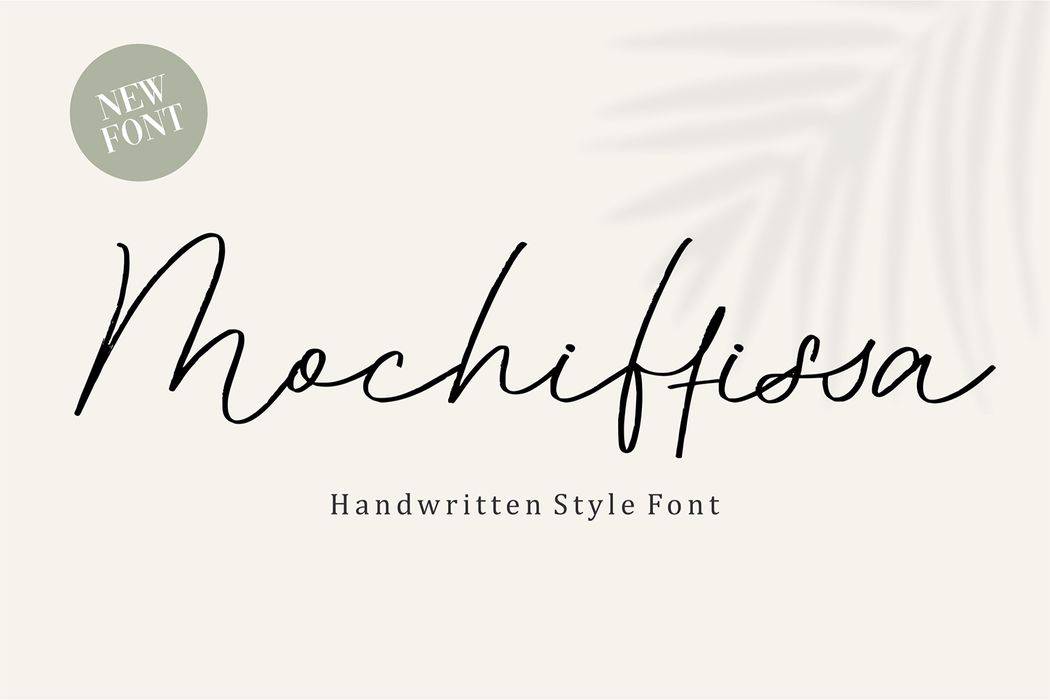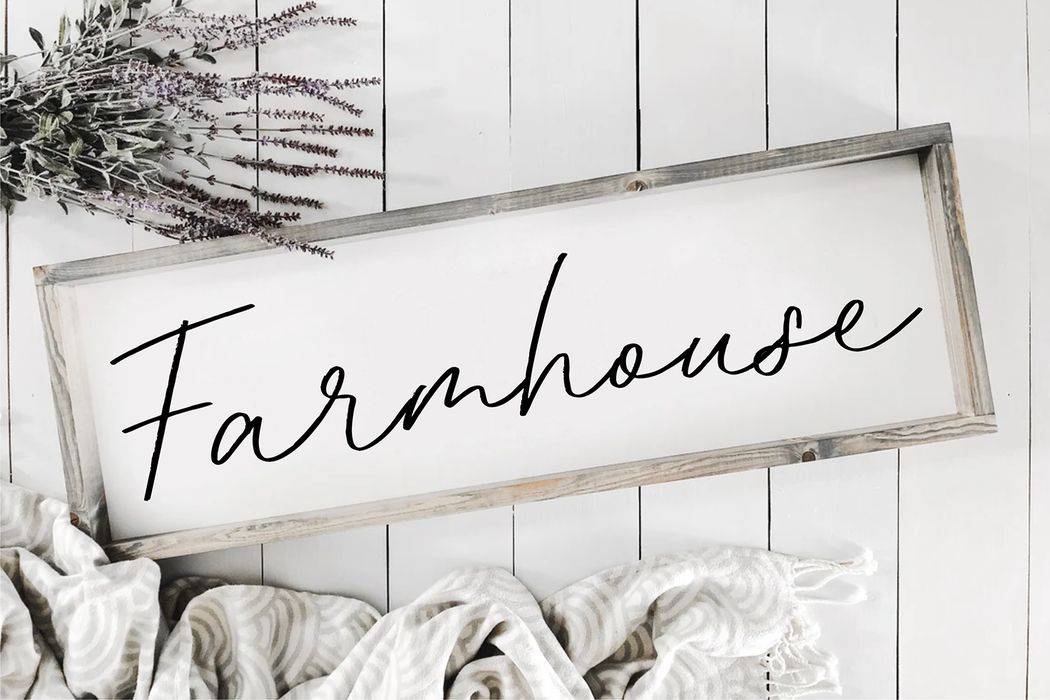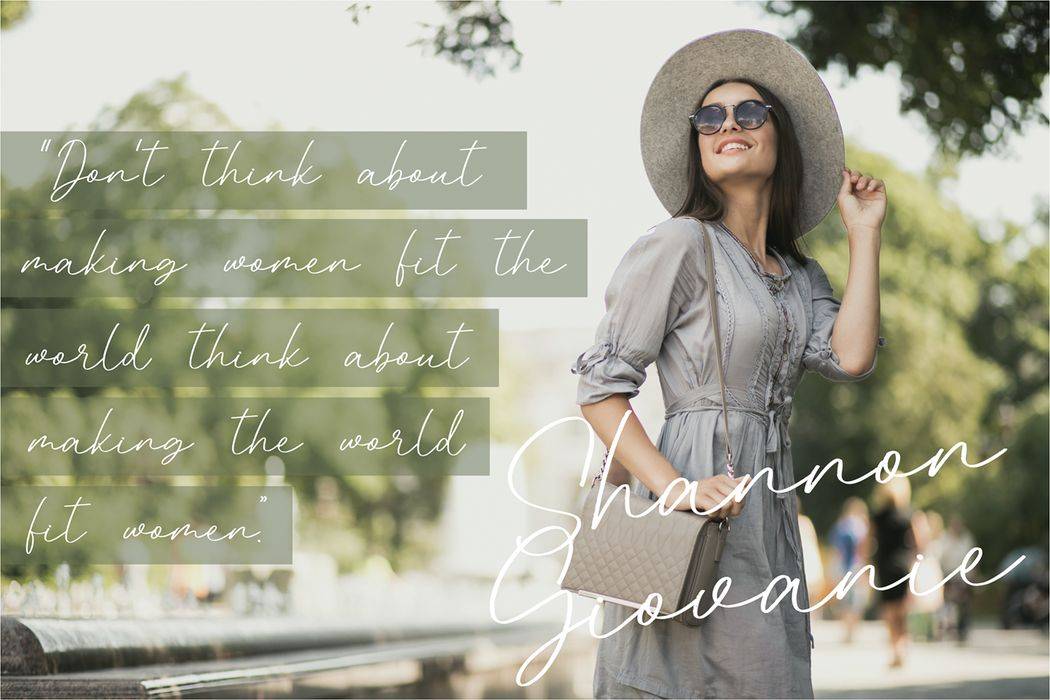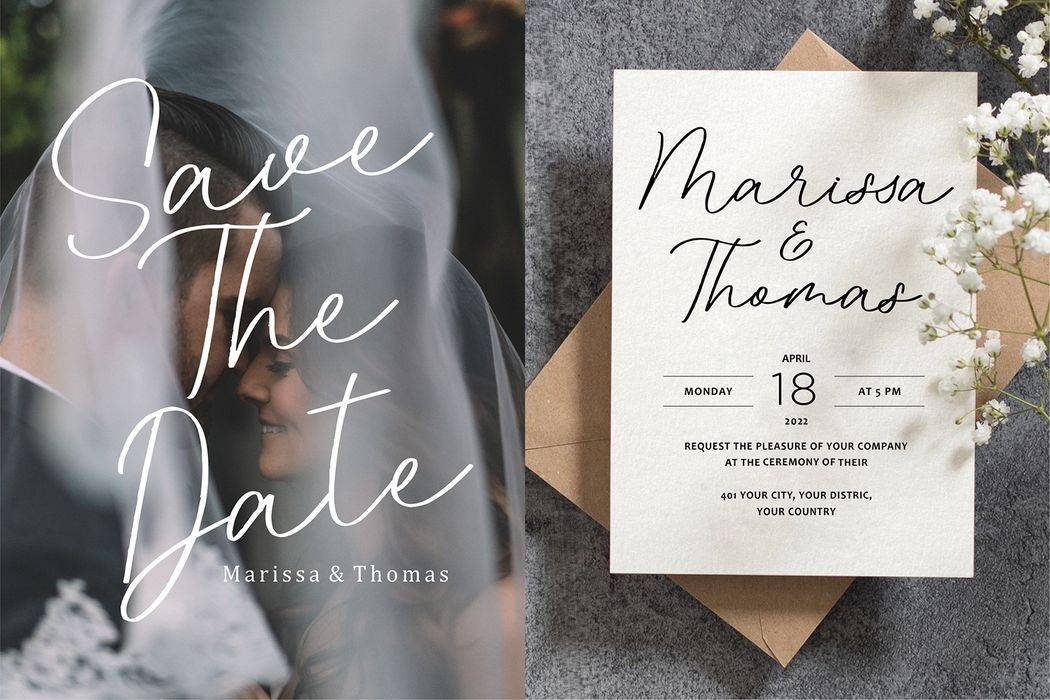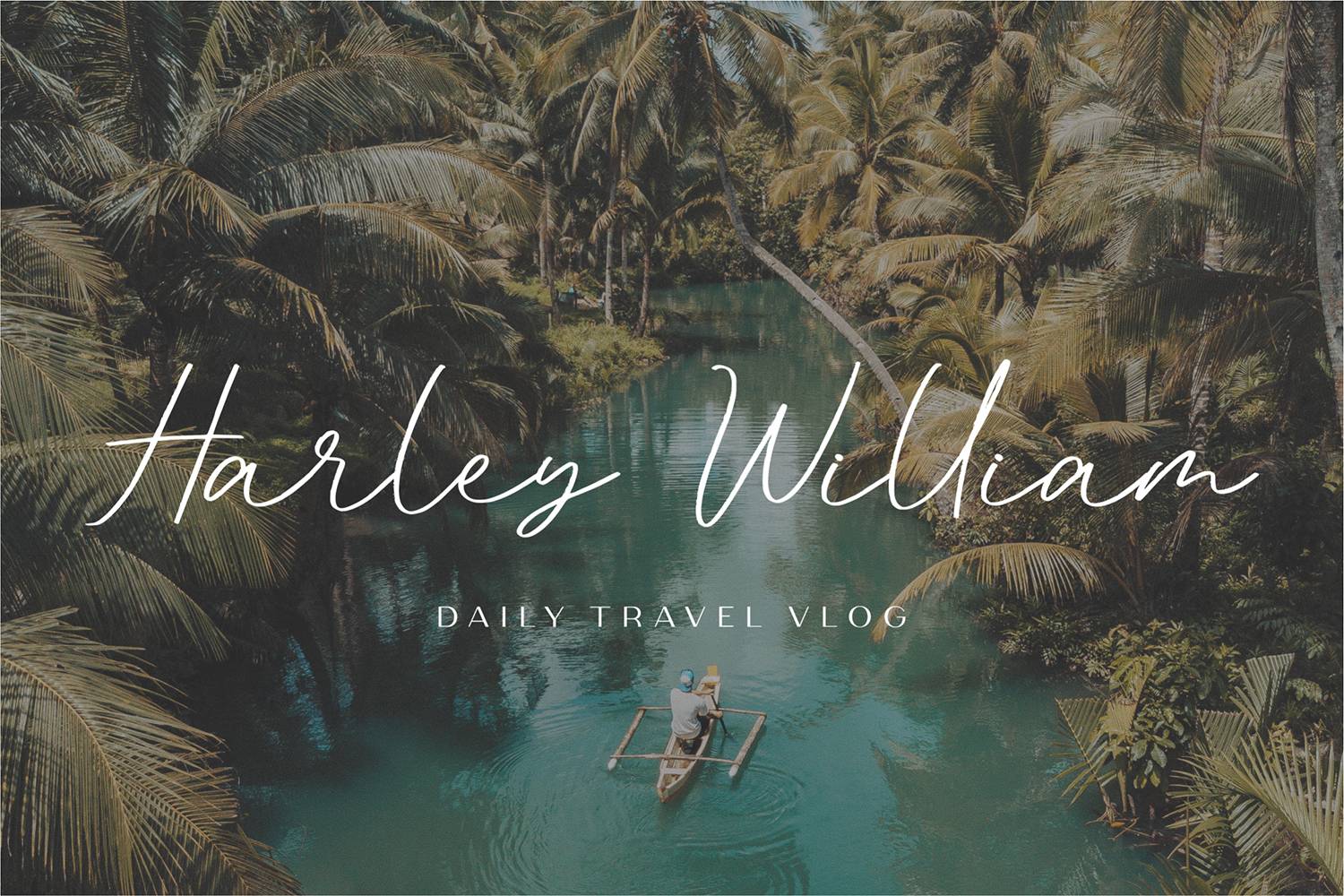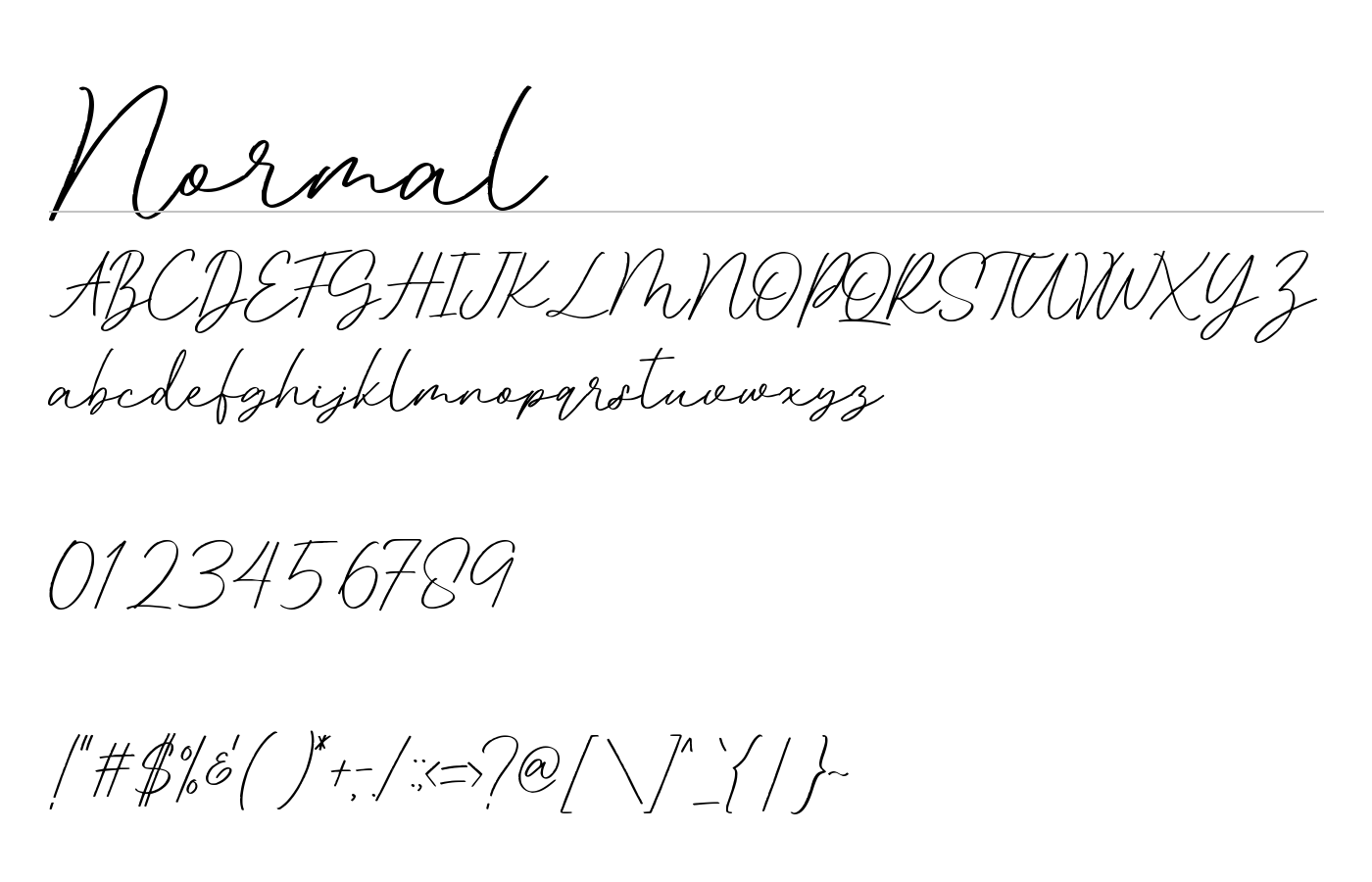
Mochiffissa is a delicate, handwritten script font with an elegant and airy feel, characterized by its thin strokes and slightly slanted letterforms. Its flowing, cursive style with unique flourishes makes it perfect for adding a personal, stylish touch to invitations, branding, and creative projects that seek a refined yet approachable look. This font works best in decorative headlines or short text rather than long passages, where its charming details can truly shine.
Mochiffissa Font